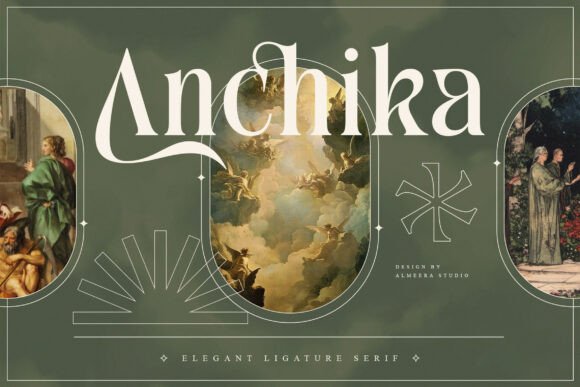
Bring Timeless Elegance to Your Design Projects with Anchika Font
In the world of typography, fonts play a crucial role in conveying the tone and personality of a brand or design project. For those seeking to add a touch of sophistication and style to their work, the Anchika font is an excellent choice. This elegant ligature serif font is crafted to bring timeless elegance to a wide range of design applications, from high-end branding and editorial layouts to fashion projects and luxury packaging.
The Essence of Anchika Font
Anchika is more than just a font; it’s a design statement. It combines modern refinement with a touch of vintage charm, making it perfect for designers who want to create a lasting impression. The font’s carefully designed ligatures and graceful letterforms deliver a classy yet contemporary aesthetic that is sure to elevate any design project.
Key Features of Anchika Font
- Elegant Ligature Serif Design: Anchika’s ligature serif design adds a touch of sophistication to any text, making it ideal for high-end branding and editorial content.
- Modern Refinement with Vintage Charm: The font strikes a perfect balance between modern elegance and vintage charm, making it versatile for various design applications.
- Multilingual Support: Anchika provides extensive multilingual support, allowing designers to create content in multiple languages with ease.
- PUA Encoding: The font includes PUA (Private Use Area) encoding, ensuring seamless use in any design software, including Adobe Creative Cloud applications.
- Versatility and Functionality: Anchika is not only aesthetically pleasing but also highly functional, making it suitable for a wide range of design projects.
Design Applications for Anchika Font
Anchika’s versatility makes it suitable for various design applications. Here are some of the ways you can use this elegant font:
1. High-End Branding
For luxury brands, establishing a sophisticated and elegant visual identity is crucial. Anchika’s refined and classy appearance makes it an excellent choice for logos, brand guidelines, and marketing materials.
2. Editorial Layouts
Whether you’re designing a magazine, journal, or book, Anchika’s elegant ligature serif design enhances the readability and aesthetic appeal of your editorial content.
3. Fashion Projects
The fashion industry demands high-end visuals, and Anchika delivers. Use this font for fashion magazines, brand catalogs, and promotional materials to add a touch of sophistication.
4. Luxury Packaging
Luxury packaging requires typography that exudes elegance and refinement. Anchika’s beautiful ligatures and classic design make it perfect for product labels, packaging inserts, and brand storytelling.
Why Choose Anchika Font?
With numerous fonts available, why should you choose Anchika for your design projects? Here are some compelling reasons:
1. Unique Ligatures
Anchika offers a range of unique ligatures that add a touch of elegance to your text. These ligatures not only enhance the visual appeal but also create a distinctive brand identity.
2. Readability and Versatility
The font is designed to be highly readable, even in smaller sizes. Its versatility allows you to use it across various design applications, from digital content to print materials.
3. Modern Aesthetic with Timeless Appeal
Anchika strikes a perfect balance between modern design elements and timeless elegance. This makes it a valuable asset for designers who want to create contemporary yet classic visuals.
4. Extensive Language Support
In a globalized world, design often needs to cater to diverse audiences. Anchika’s multilingual support ensures you can create content in various languages without worrying about typographical limitations.
3. Exploring Font Features
Take full advantage of Anchika’s features, including ligatures and multilingual support. Experiment with different design elements to create a unique visual identity for your projects.
Anchika font is a powerful tool for designers seeking to add a touch of elegance and sophistication to their work. With its ligature serif design, modern refinement, and vintage charm, Anchika is perfect for high-end branding, editorial layouts, fashion projects, and luxury packaging. Its multilingual support and PUA encoding make it highly functional and versatile. By choosing Anchika, you’re investing in a font that will elevate your design projects and leave a lasting impression on your audience.